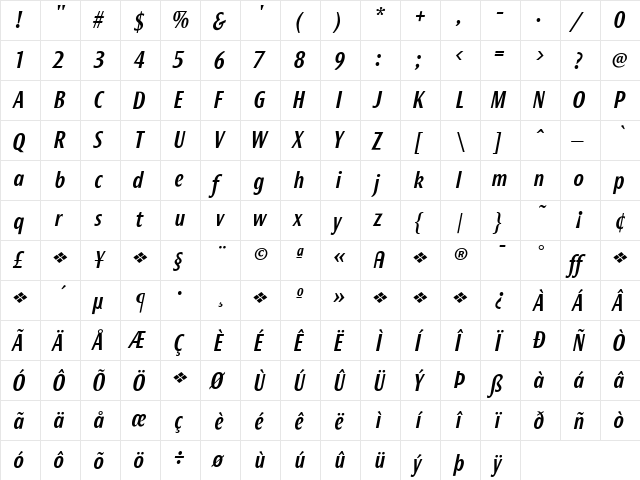
Roxy Italic
Design Context for Roxy Typeface
Roxy takes a measured approach to typography — its balanced proportions and neutral character make it a reliable workhorse for both digital and print work. The slanted form adds forward momentum and visual energy.